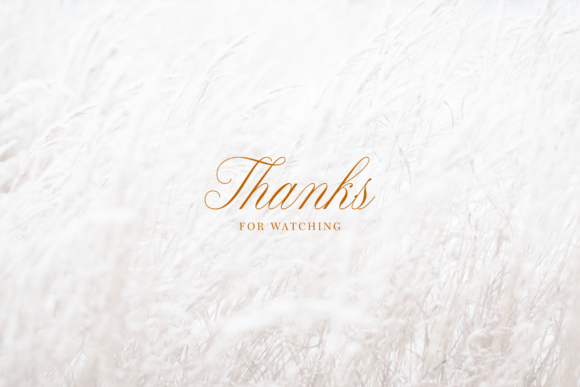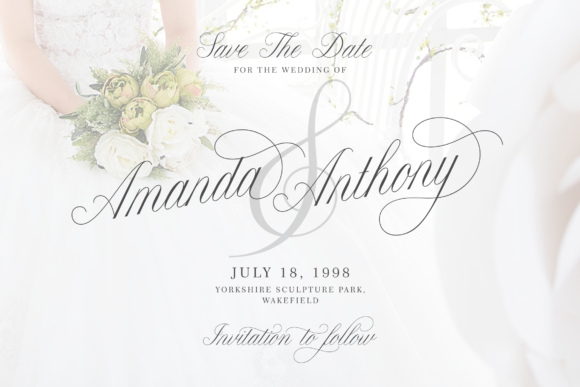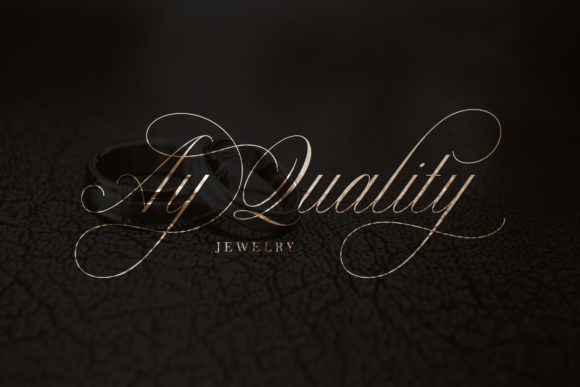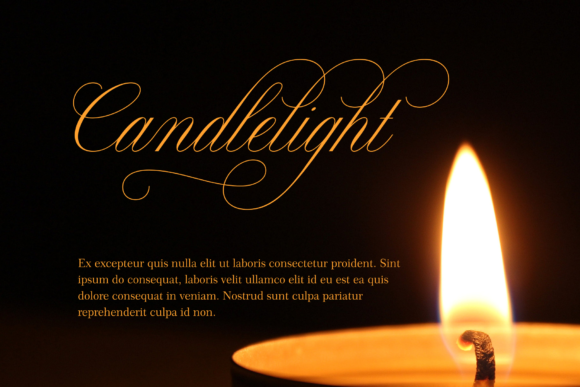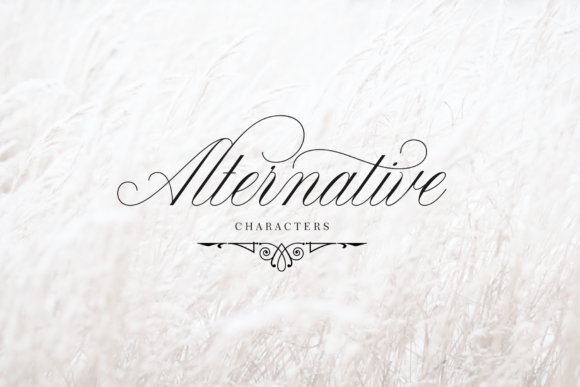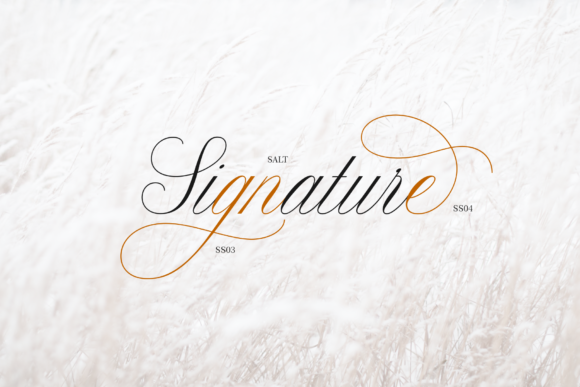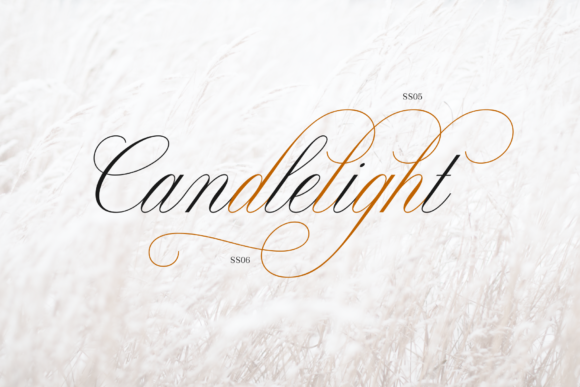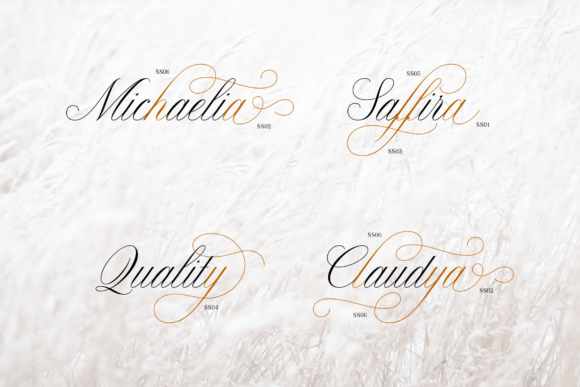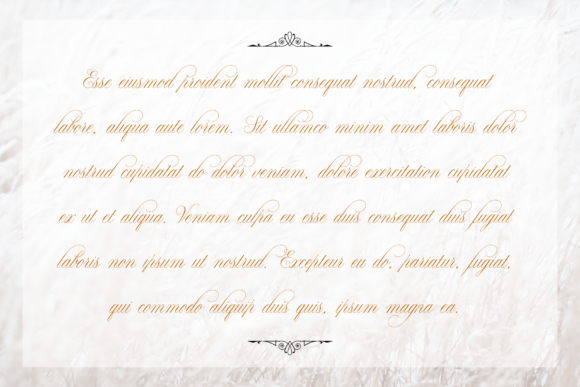
Claudya Font
About Claudya Font
Claudya is a beautiful and feminine font. This script is equipped with alternate characters, making the possibilities of design more varied and unique.